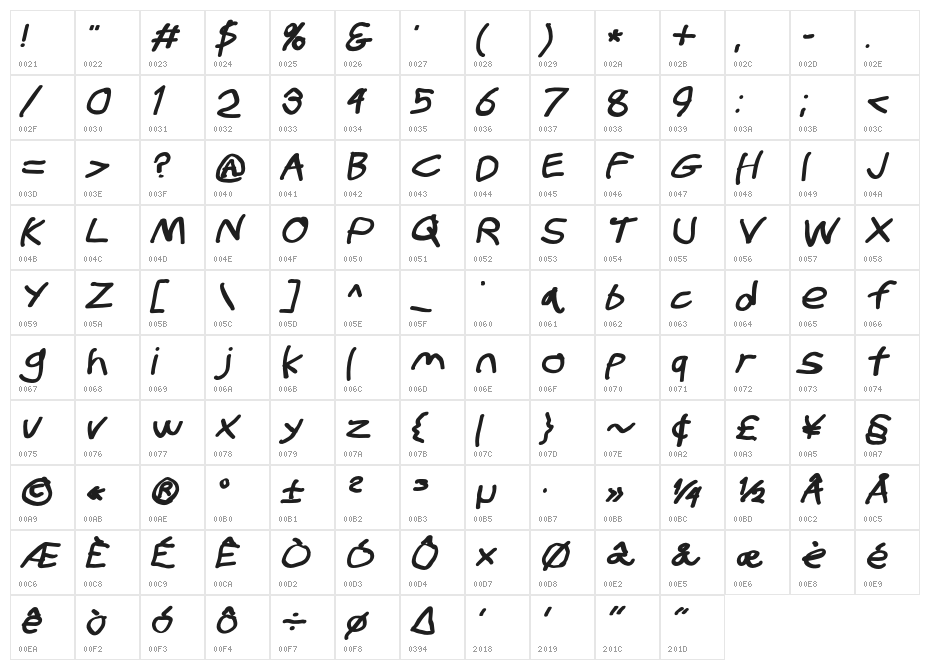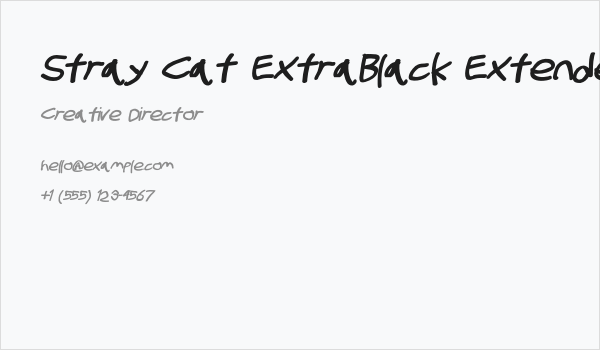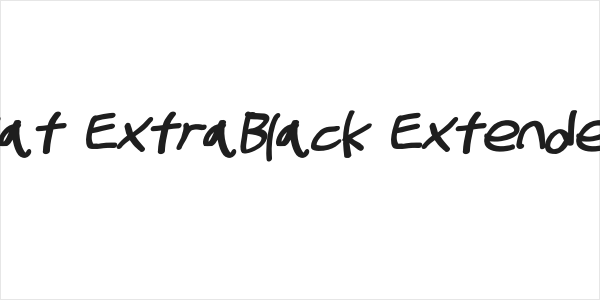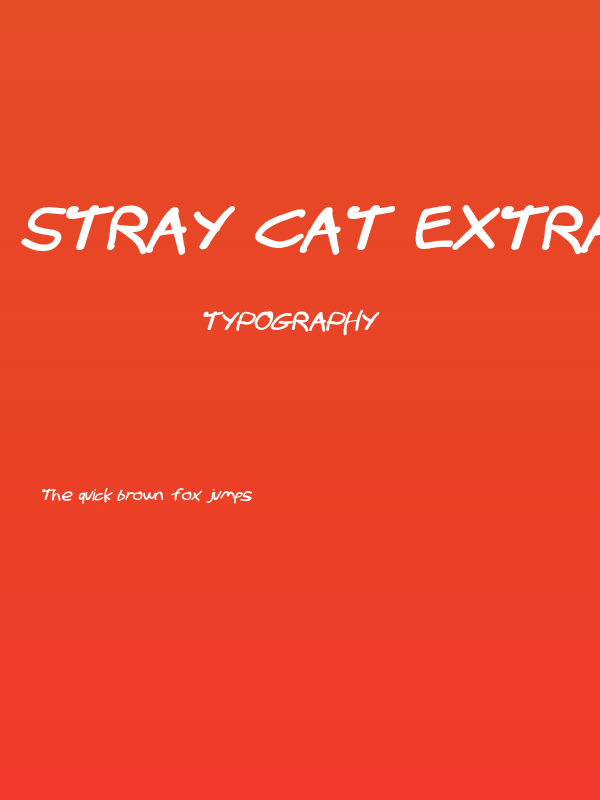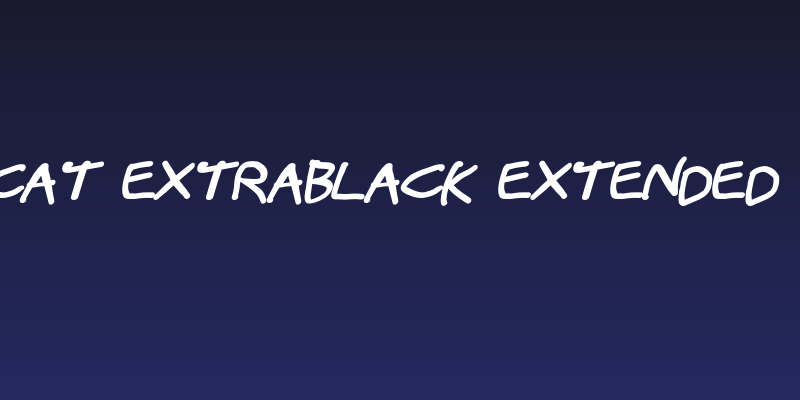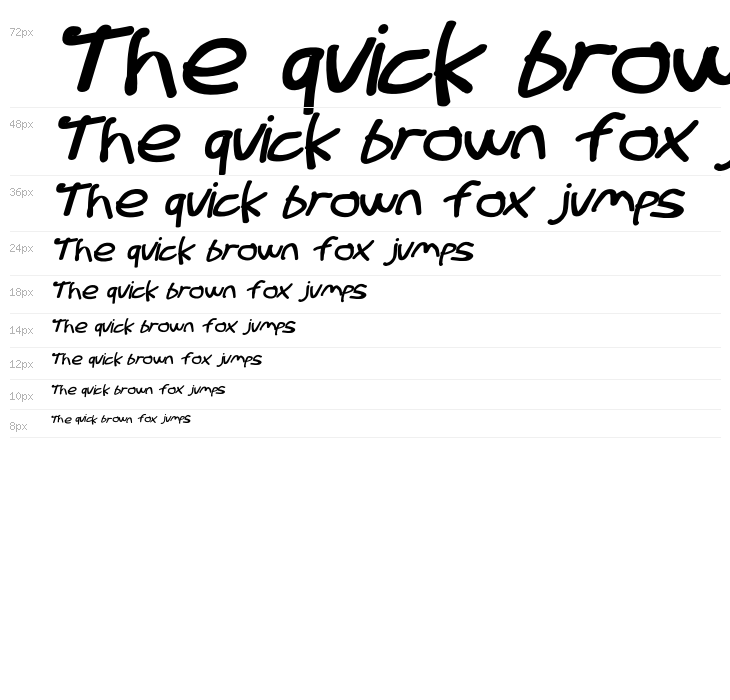
Stray Cat ExtraBlack Extended Oblique Font
Stray Cat ExtraBlack Extended Oblique Description
This font exhibits a bold and dynamic handwritten style, characterized by its thick strokes and slightly slanted orientation. The letters are crafted with a playful and energetic flair, giving them a casual yet impactful appearance. The uppercase and lowercase letters maintain a consistent flow, while the numerals and special characters complement the overall design with their rounded and expressive forms. The font's extended width adds to its bold presence, making it suitable for attention-grabbing designs. Its oblique nature enhances the sense of movement and spontaneity, perfect for creative and informal projects.
| Proposed Projects | Ideal for posters, branding, social media graphics, and any project requiring a lively and informal touch. |